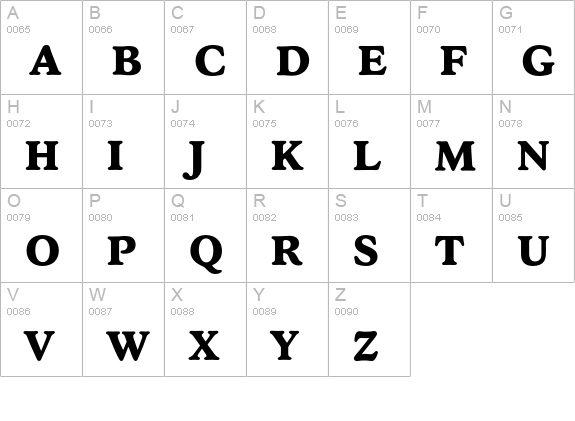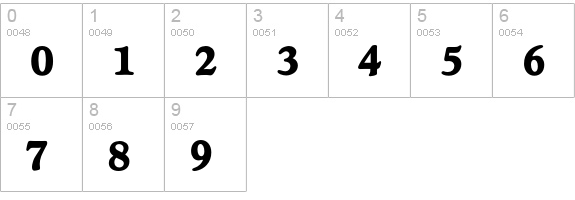
Stratford-Bold Font Details
Stratford-Bold is a strong, high-contrast variant in the Stratford typeface family \xE2\x80\x94 well suited to headlines, attention-grabbing titles, and strong calls-to-action.
Stratford-Bold is a versatile and modern font that exudes confidence and sophistication. Its bold and assertive design makes it perfect for headlines, titles, and other eye-catching typography. With its clean lines and strong presence, Stratford-Bold commands attention and leaves a lasting impression. This font is ideal for a wide range of design projects, from branding to advertising to editorial work. The best part? Stratford-Bold is available for free download at FontsMarket.com. You can easily add this striking font to your collection and use it in your designs without any cost. Don't miss out on the opportunity to enhance your projects with the bold and impactful style of Stratford-Bold. Download it now and take your designs to the next level!